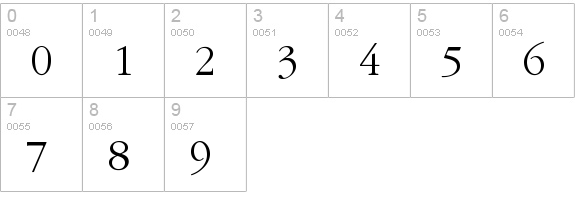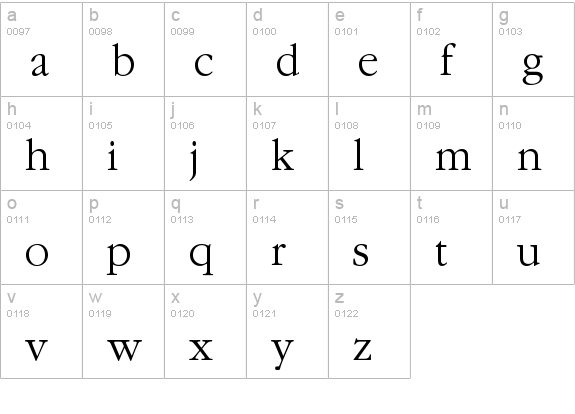
Garamond* Light is a refined, elegant variant in the Garamond* typeface family \xE2\x80\x94 well suited to elegant body text, refined sub-headings, and luxury branding.
Garamond Light is a classic font known for its elegance and sophistication. With its delicate serifs and slender letterforms, Garamond Light exudes a timeless charm that is perfect for conveying a sense of refinement and professionalism. This beautifully crafted font is ideal for a wide range of design projects, from elegant invitations to sleek corporate branding. What makes Garamond Light even more appealing is that it is available for free download at FontsMarket.com. This means that you can easily access this exquisite font without any cost, making it a valuable addition to your font collection. Whether you are a designer looking to add a touch of sophistication to your work or a business owner seeking a beautiful typeface for your marketing materials, Garamond Light is a versatile choice that you can use with confidence. Download Garamond Light today and elevate your designs with its timeless beauty.